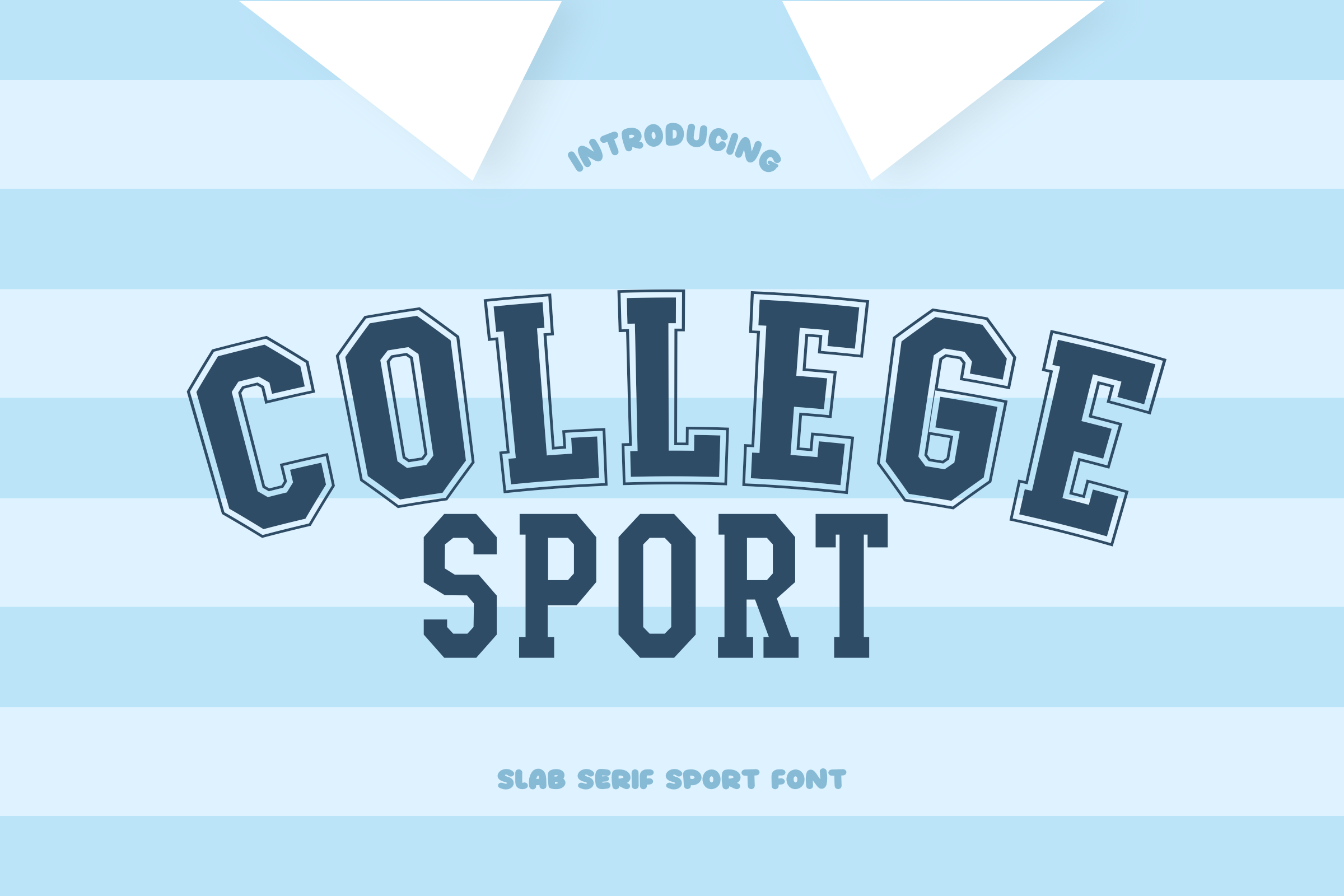
College Sport Font
College Sport is a varsity-style display font that's tailor-made for sports and collegiate-themed designs. It's an ideal choice for crafting team shirts, hats, and merchandise for Sports Day, bringing a lively and playful atmosphere to any project.